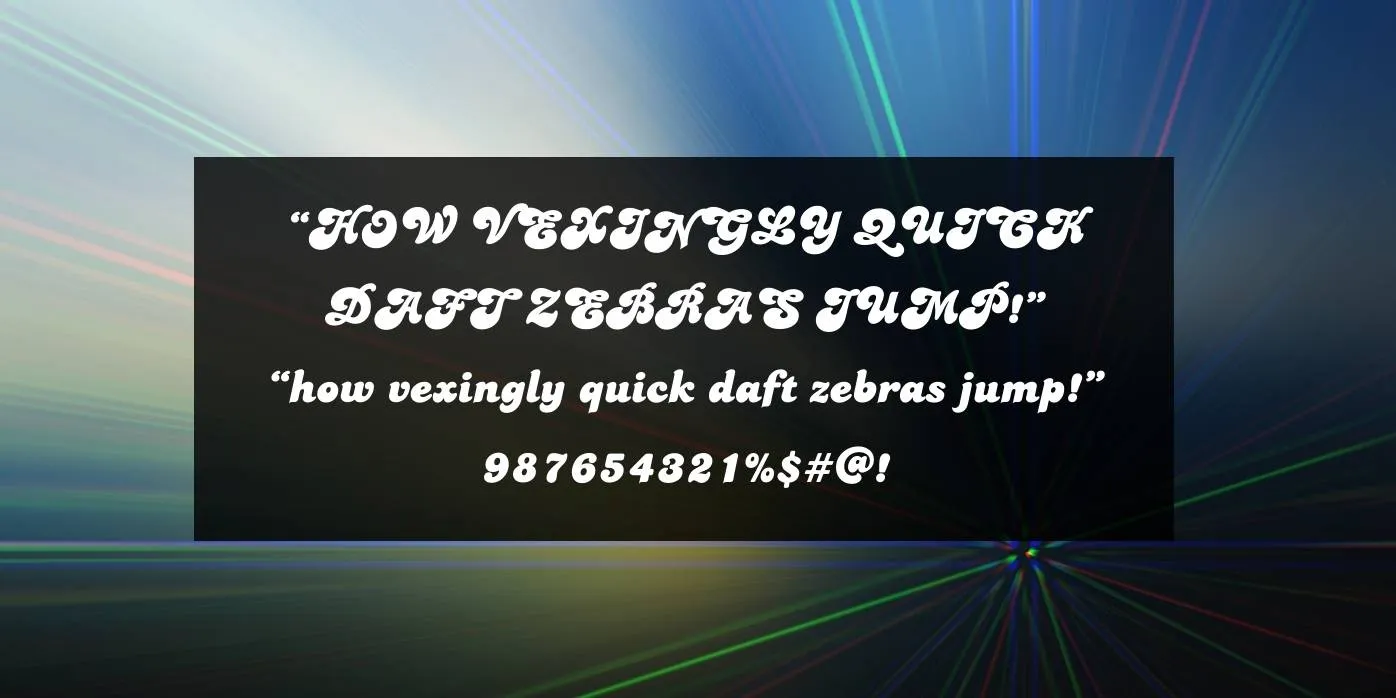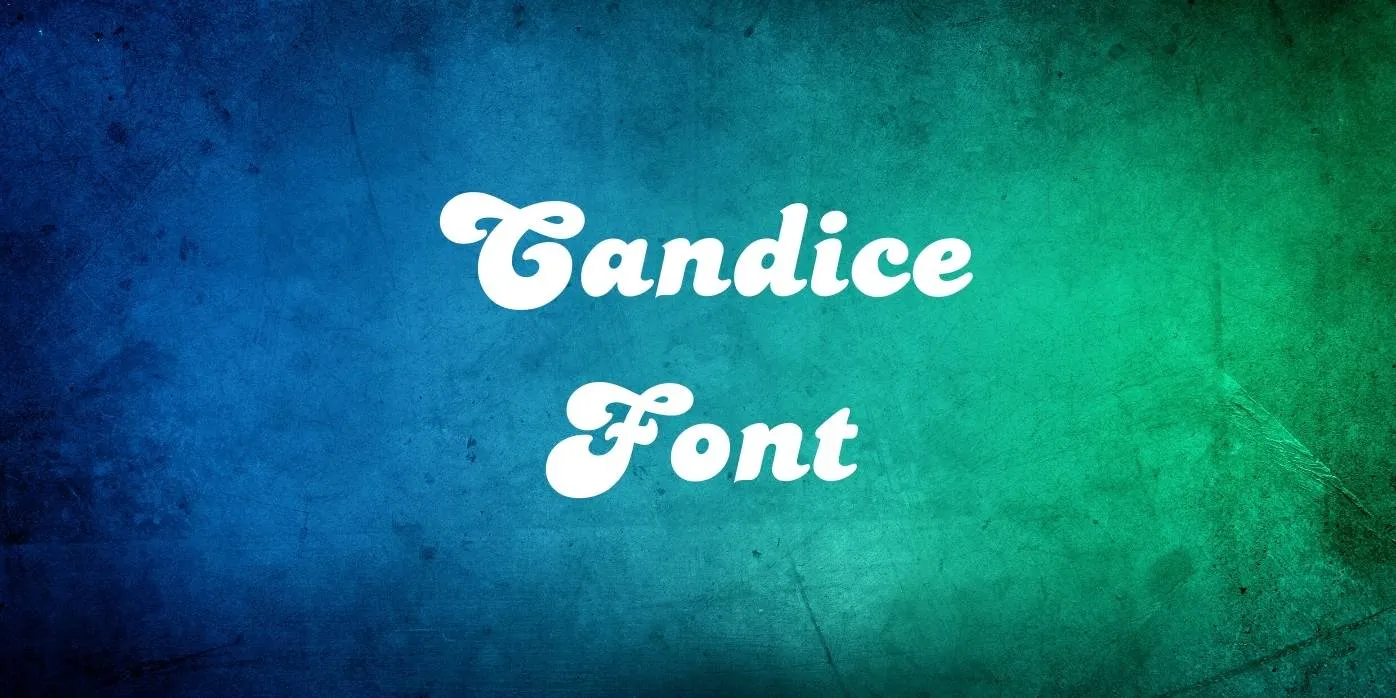
Candice Font
Candice Font is a marvelous typeface that is famous in the design industry. This font family belongs to the fancy fonts. The main creator of this typeface is Alan Meeks a famous designer. This typeface was released in the year 2007.
This typeface is characterized by its curvy, feminine shapes. The main inspiration for this typeface came from the late 19th-century book cover designs and other ornamental types. This font family is available in two different versions. They are Candice Regular and Candice Ornamental.
This typeface also has a special set of ligatures and fractions. The regular version of this font contains more than 200 characters while the ornamental version has only 100 characters. But both these versions have the same basic features.